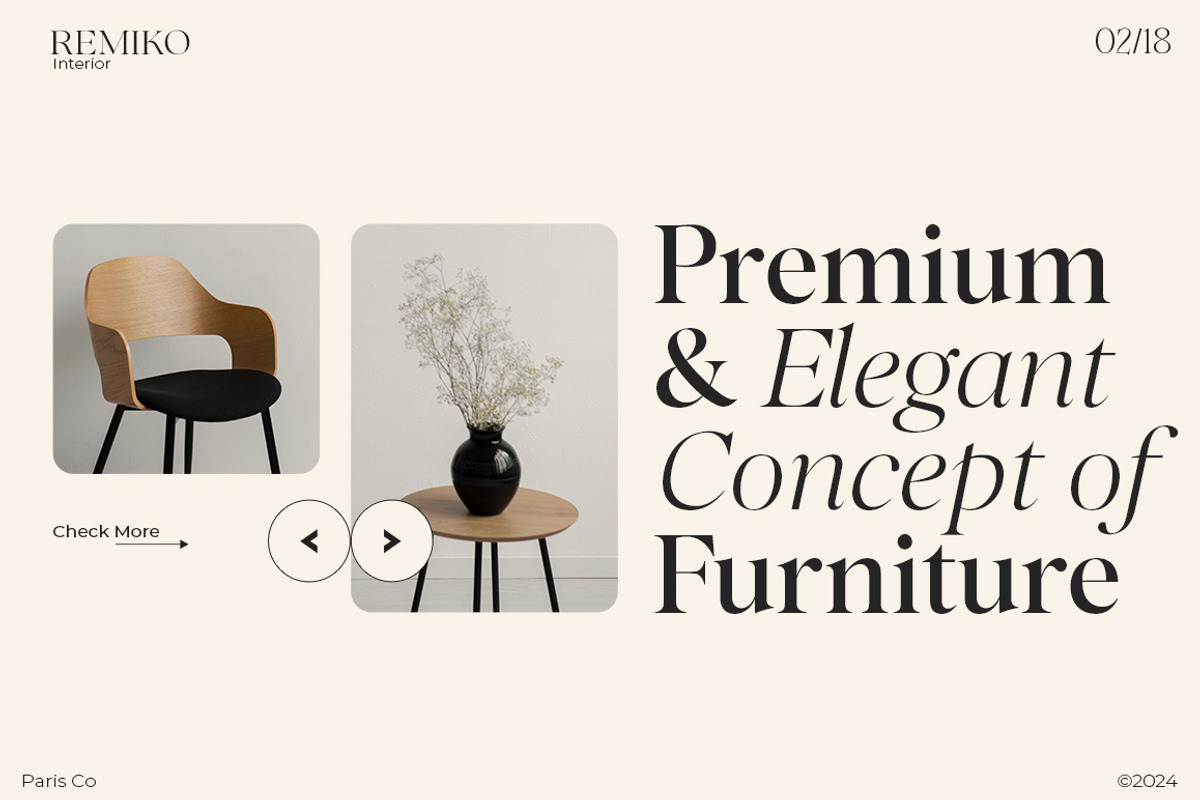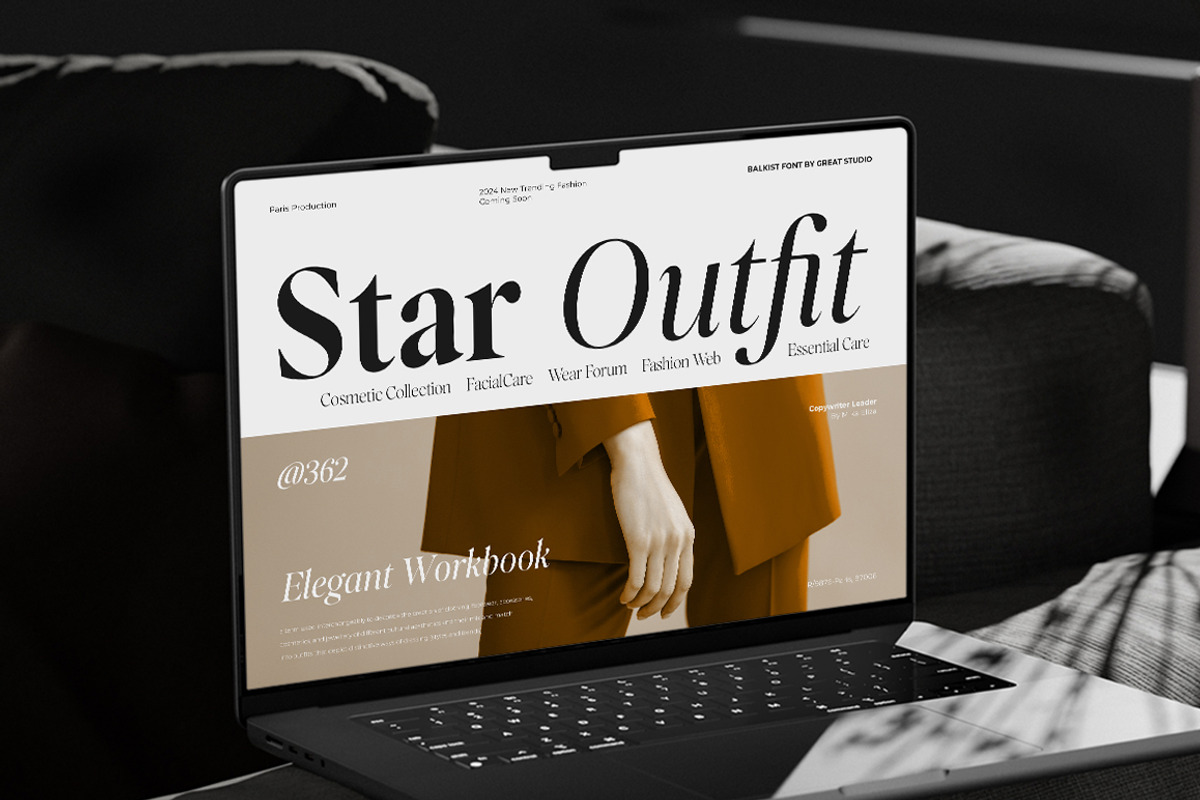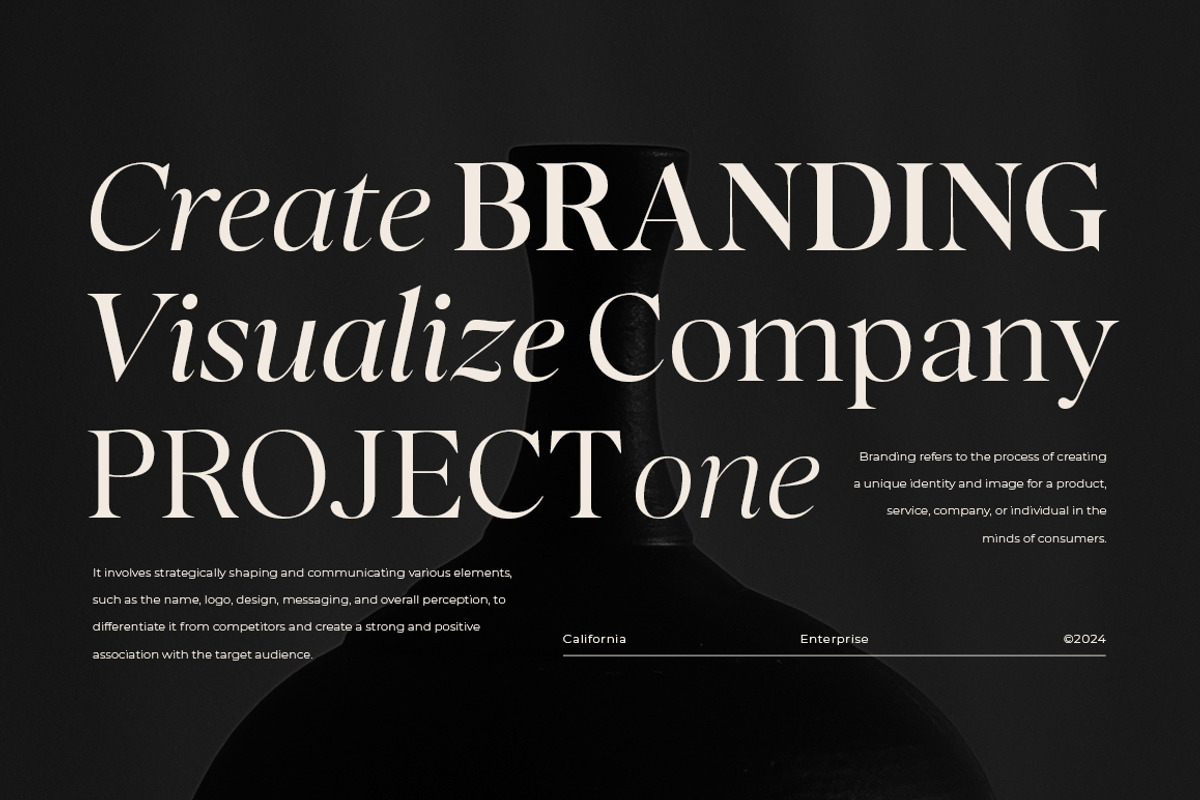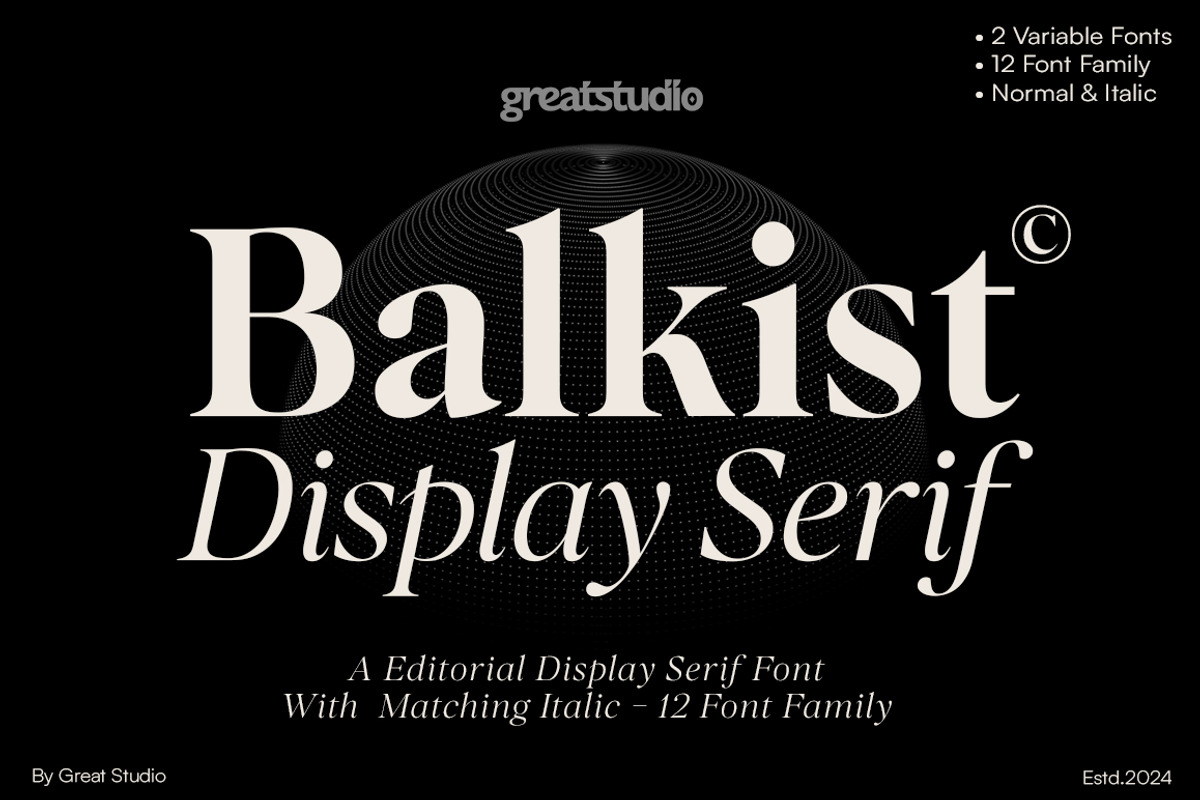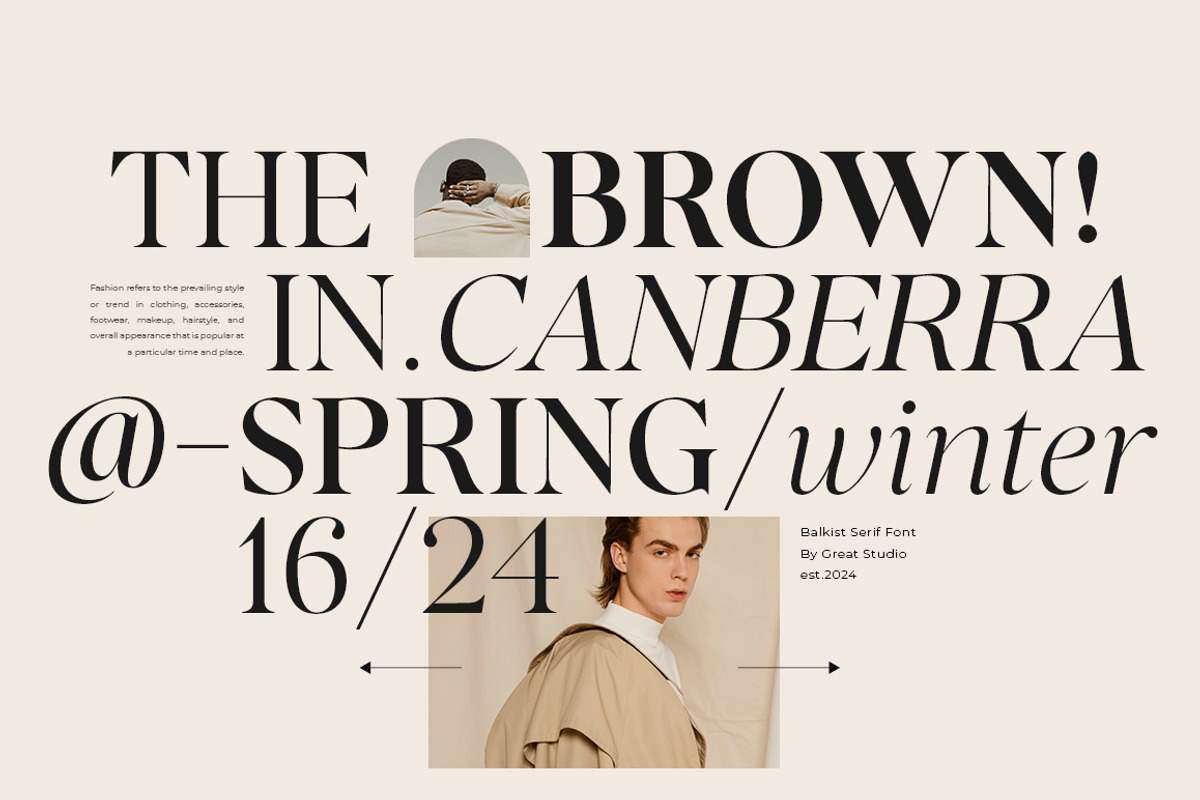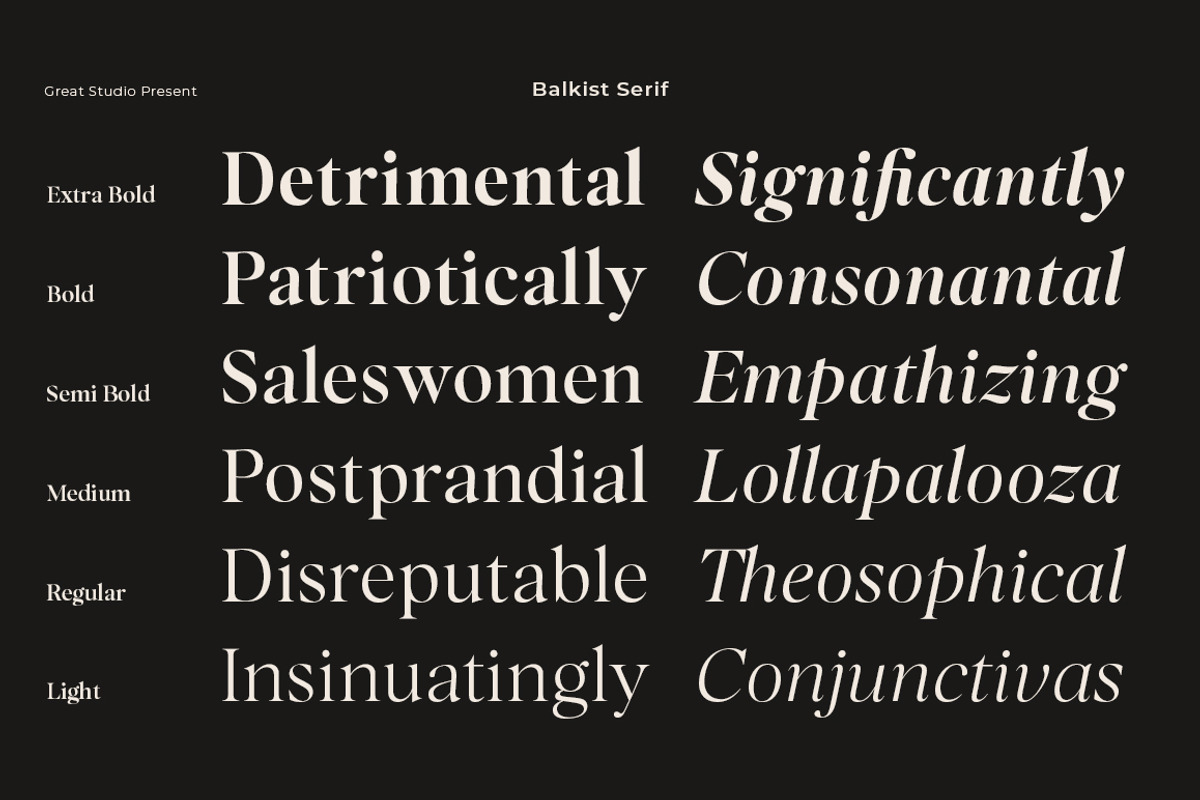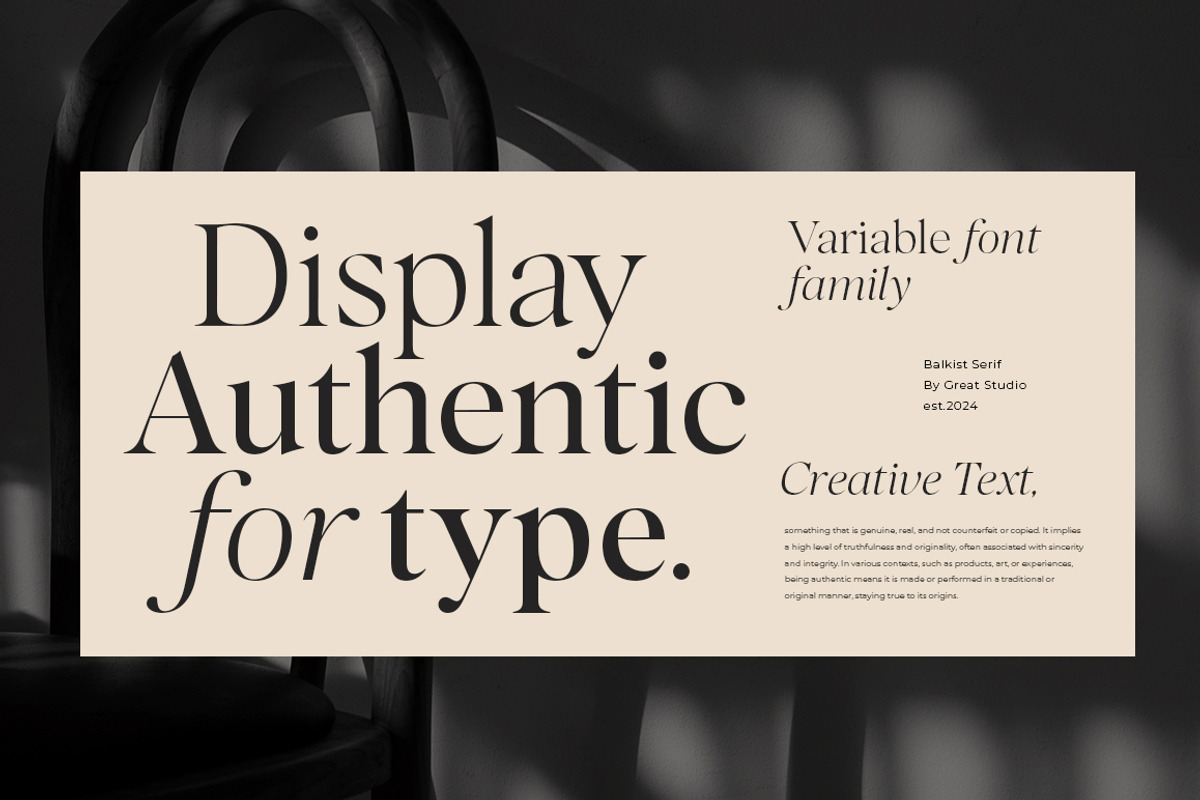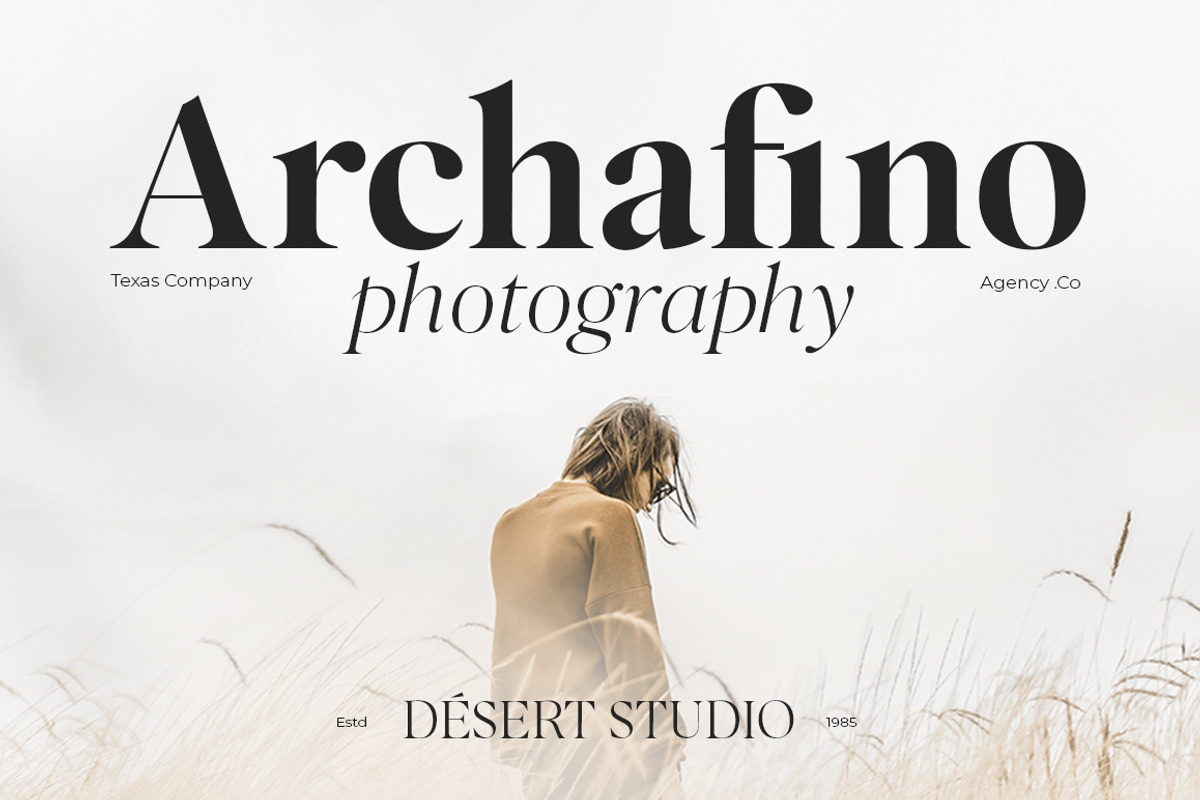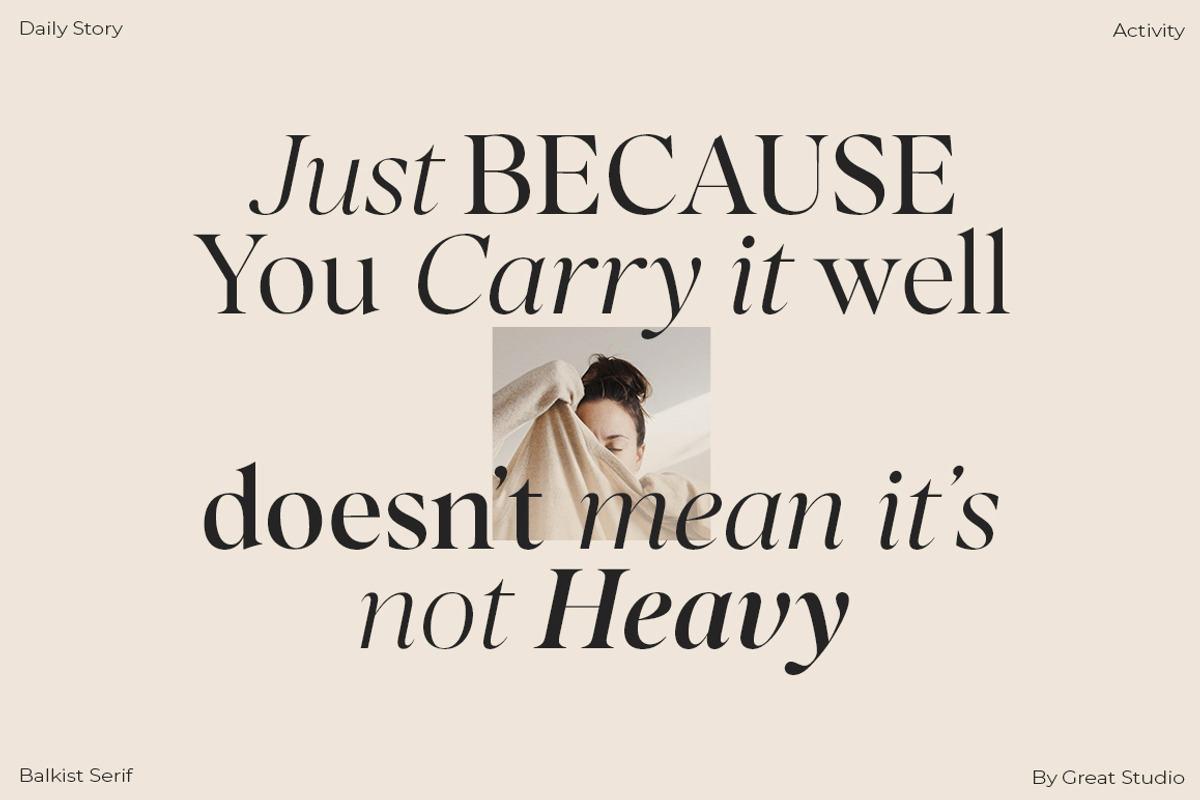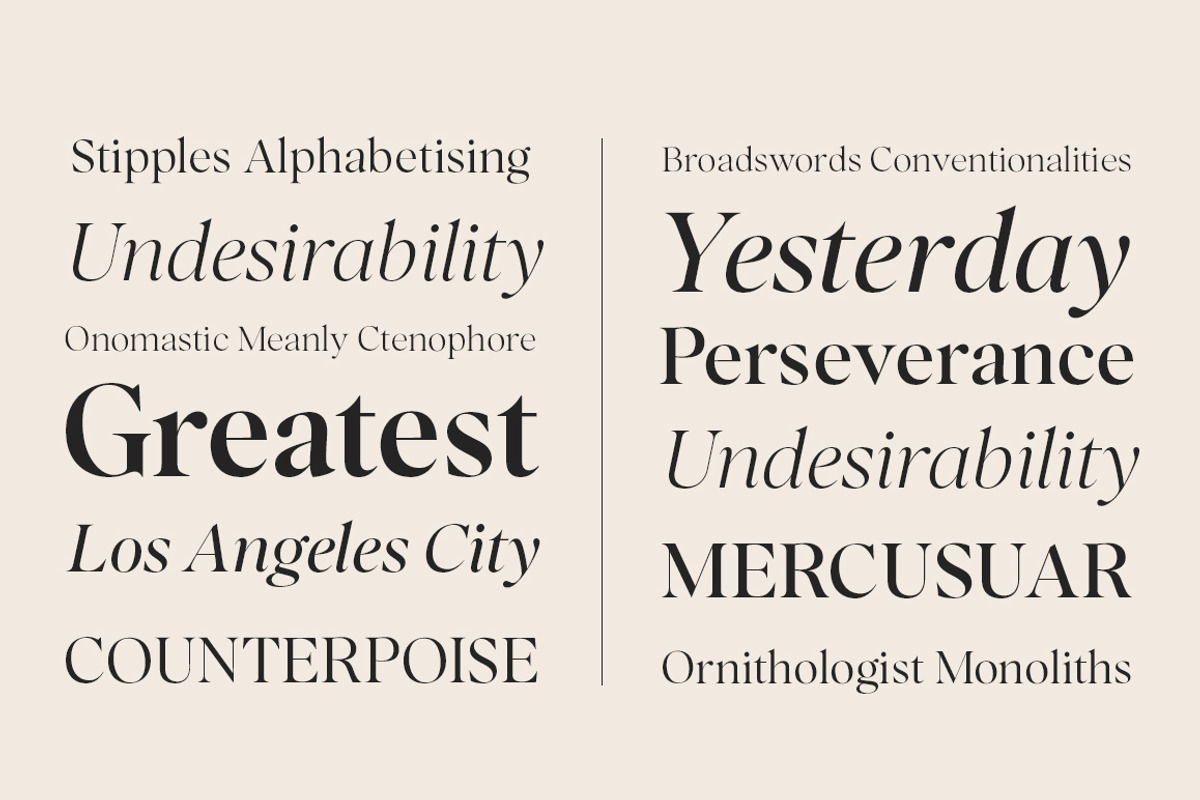
Balkist - 12 Font Family
Balkist is a transitional and contemporary high contrast typeface that is harmonious and stylish. The font expands its use by providing weights ranging from Light to Extra Bold. The natural curves, Featuring charming italics, are extraordinarily weighted, While the thinner weights have lowered contrast and optical correction to create a warm and soft look. The entire character set supports over 200 Latin-based languages.
This versatility makes Balkist the perfect choice for a wide range of applications such as editorial design, headlines, branding projects, Logo design, packaging, magazine headings, advertising, short or long text.
Balkist also comes with two Variable Regular and Italic versions to make it easier for designers to explore and perfect beautiful designs, unearthing many visual tones and hidden secrets.